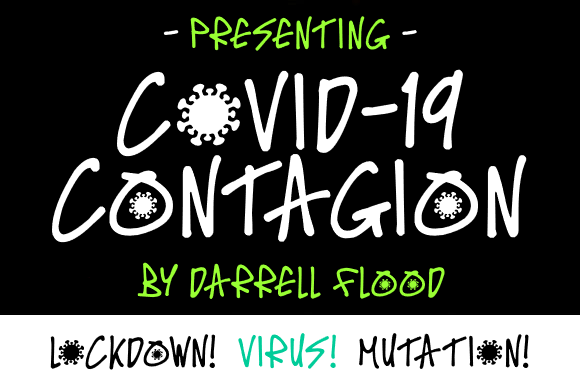
Covid-19 Contagion Font: The Perfect Choice for Corona Themes and Beyond
The Covid-19 pandemic has brought about a new era of awareness and concern for global health. As a result, designers and artists are looking for creative ways to express themselves and convey their message. One of the most effective ways to do this is through typography. Introducing the Covid-19 Contagion Font, an expressive, loose, hand-drawn font with decorative elements that’s perfect for corona themes, virus outbreaks, punk settings, and general use as street art!
What is the Covid-19 Contagion Font?
The Covid-19 Contagion Font is a unique and eye-catching font designed to capture the essence of the pandemic. It’s an expressive, loose, hand-drawn font with decorative elements that give it a raw, edgy feel. The font is perfect for designers and artists who want to add a touch of rebellion and nonconformity to their work.
Key Features of the Covid-19 Contagion Font
- Expressive and Loose: The Covid-19 Contagion Font has an expressive and loose design that’s perfect for creating eye-catching headlines and titles.
- Hand-Drawn: The font is hand-drawn, giving it a unique and authentic feel that’s perfect for street art and punk settings.
- Decorative Elements: The font features decorative elements that add a touch of elegance and sophistication to your designs.
- Perfect for Corona Themes: The font is specifically designed for corona themes and virus outbreaks, making it perfect for designers who want to create awareness and convey their message.
- Multipurpose: The font is not limited to corona themes; it’s also perfect for punk settings, street art, and general use.
How to Use the Covid-19 Contagion Font
The Covid-19 Contagion Font can be used in a variety of ways, from creating eye-catching headlines to designing posters and flyers. Here are some ideas to get you started:
- Create a Corona-themed Poster: Use the Covid-19 Contagion Font to create a poster that raises awareness about the pandemic and its impact on society.
- Design a Punk-inspired Logo: Use the font to create a logo that’s perfect for punk bands, clothing brands, or any other business that wants to convey a rebellious image.
- Add a Touch of Street Art to Your Designs: Use the font to add a touch of street art to your designs, whether it’s a flyer, brochure, or website.
Benefits of Using the Covid-19 Contagion Font
There are several benefits to using the Covid-19 Contagion Font, including:
- Unique and Eye-Catching: The font is unique and eye-catching, making it perfect for designers who want to stand out from the crowd.
- Expressive and Versatile: The font is expressive and versatile, making it perfect for a wide range of design projects.
- Easy to Read: Despite its decorative elements, the font is easy to read, making it perfect for body text and headlines.
Tips for Using the Covid-19 Contagion Font Effectively
Here are some tips for using the Covid-19 Contagion Font effectively:
- Use it Sparingly: While the font is eye-catching, it’s best to use it sparingly to avoid overwhelming your design.
- Pair it with a Simple Font: Pair the Covid-19 Contagion Font with a simple font to create contrast and add visual interest to your design.
- Experiment with Colors: Experiment with different colors to find the perfect combination that complements your design.
The Covid-19 Contagion Font is a unique and expressive font that’s perfect for corona themes, virus outbreaks, punk settings, and general use as street art. With its hand-drawn design, decorative elements, and versatility, it’s an excellent choice for designers and artists who want to add a touch of rebellion and nonconformity to their work. Whether you’re creating a poster, logo, or website, the Covid-19 Contagion Font is sure to make a statement.